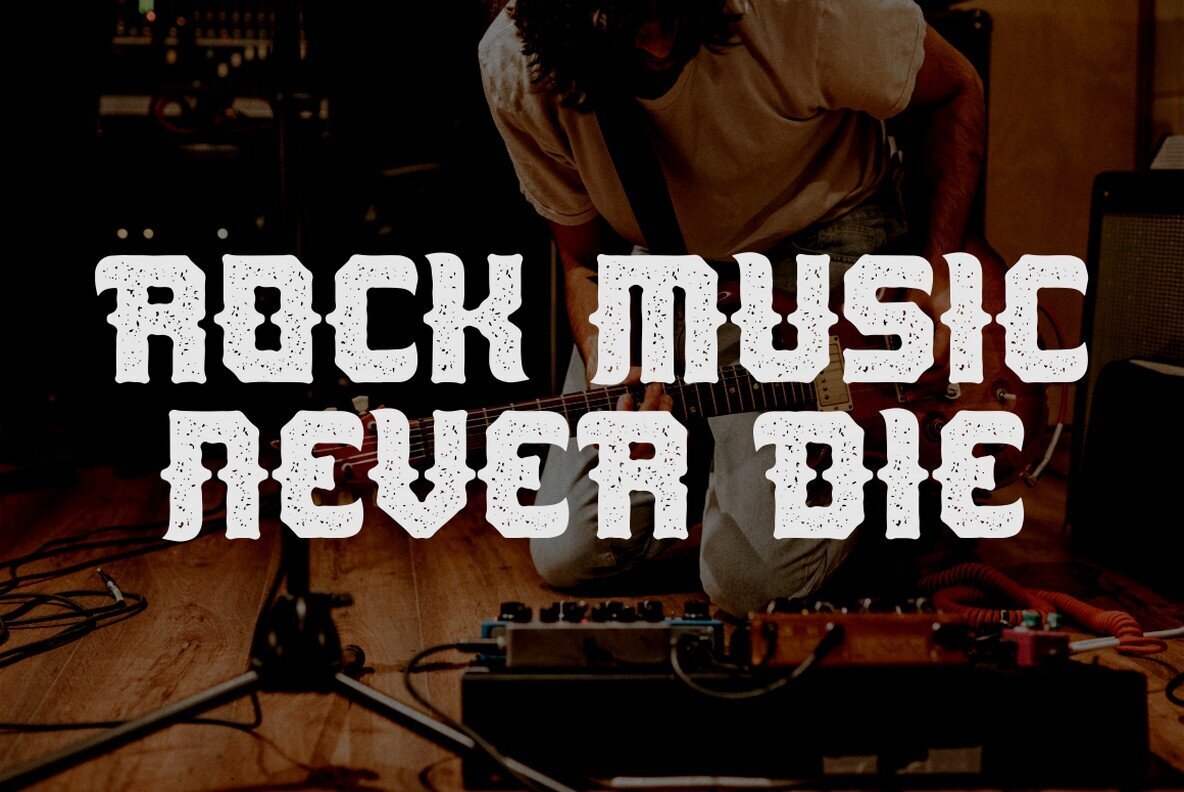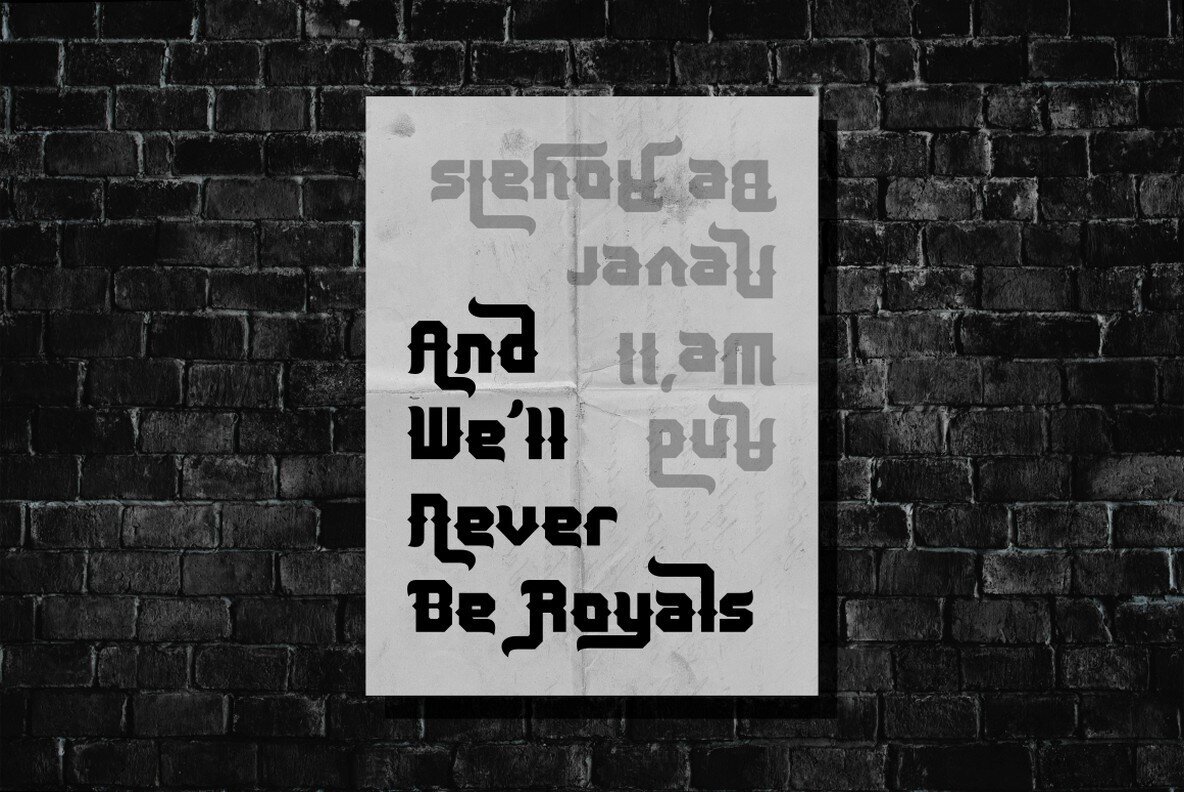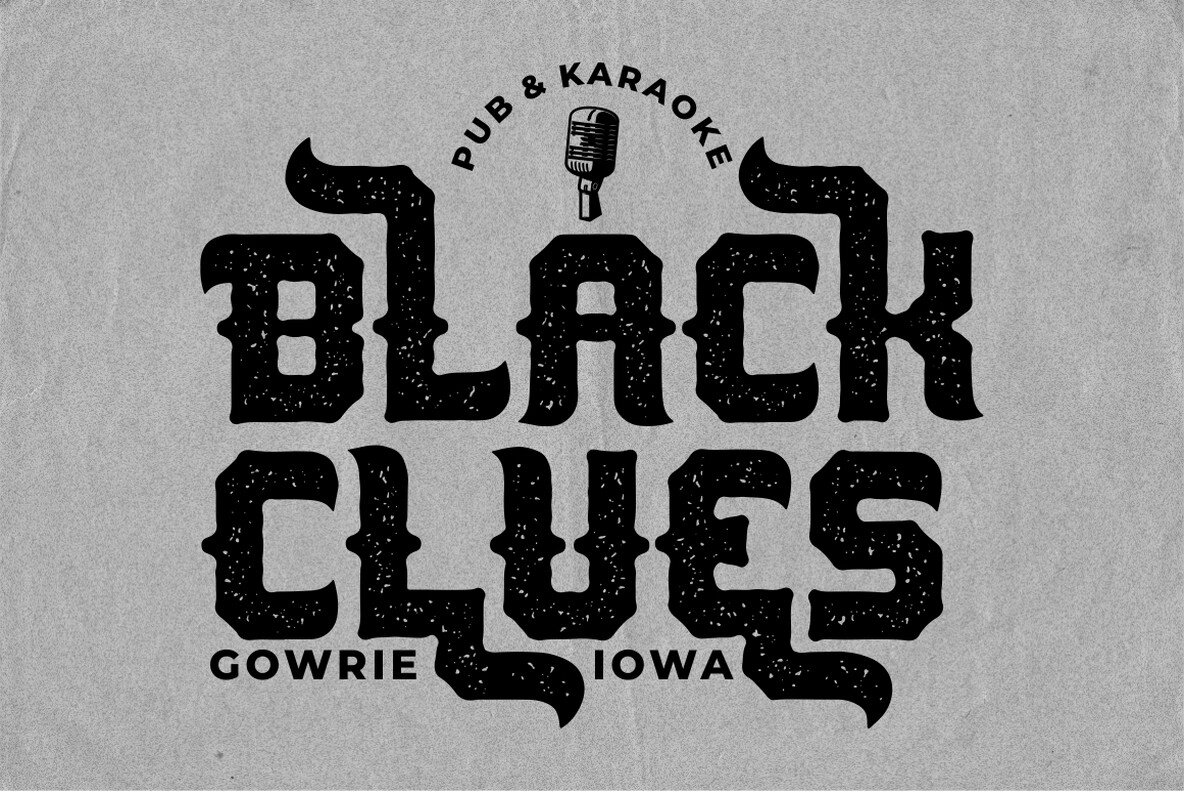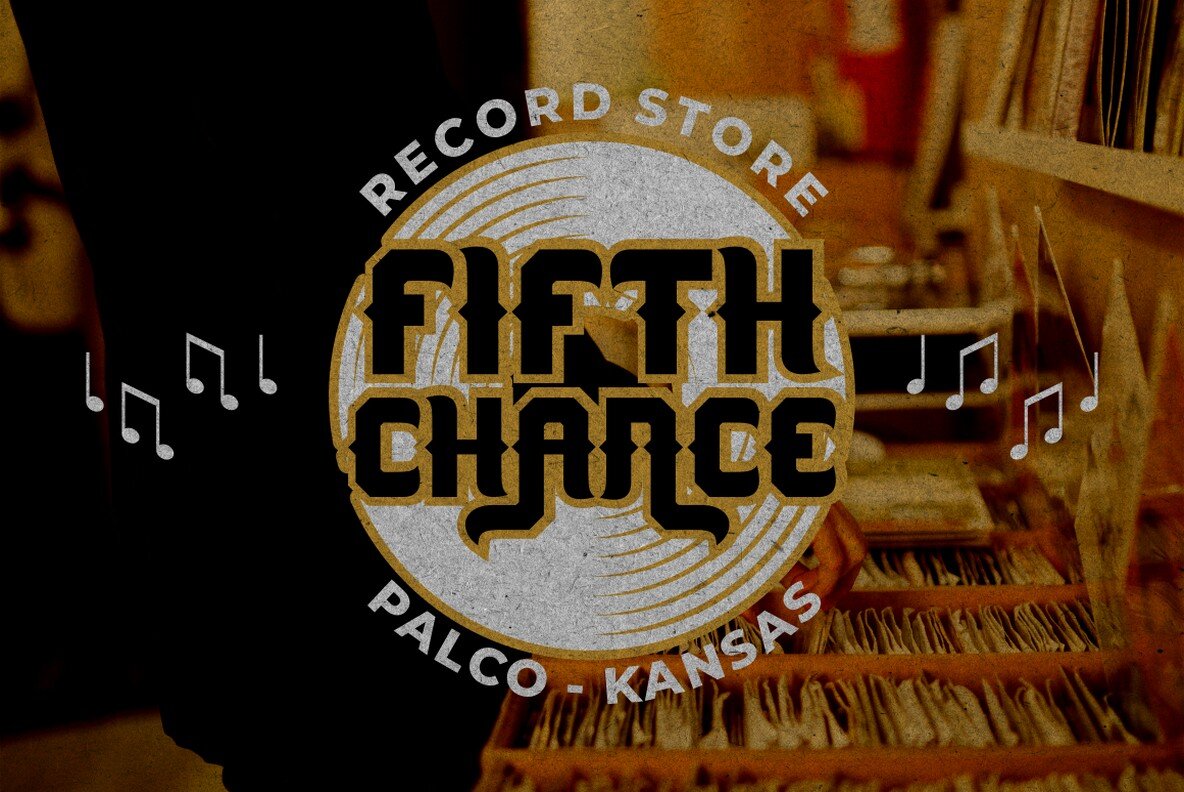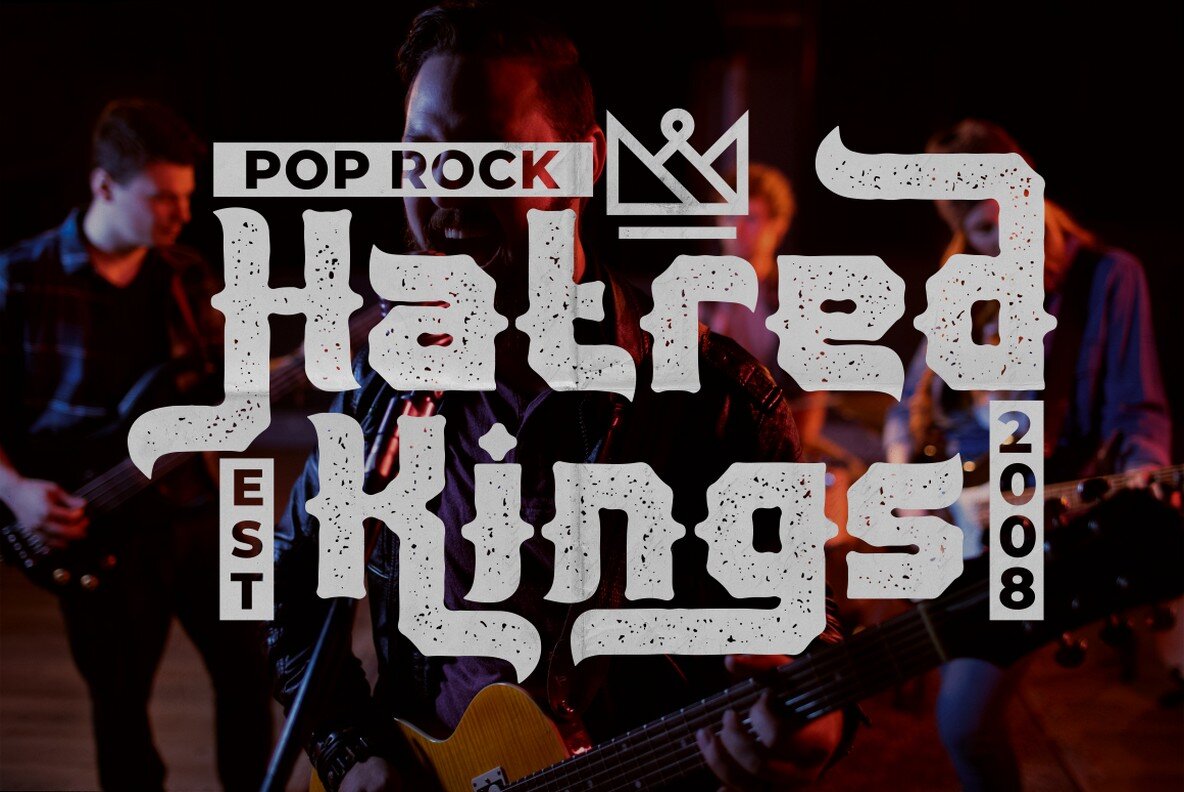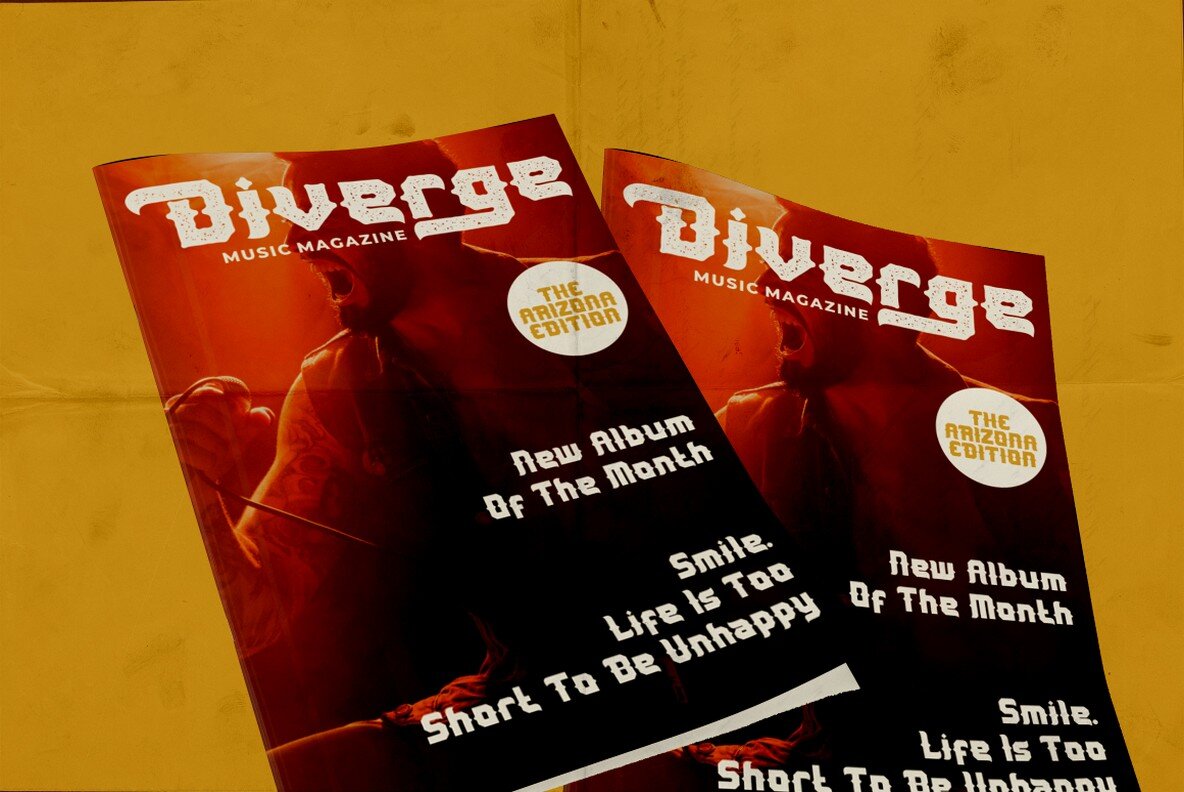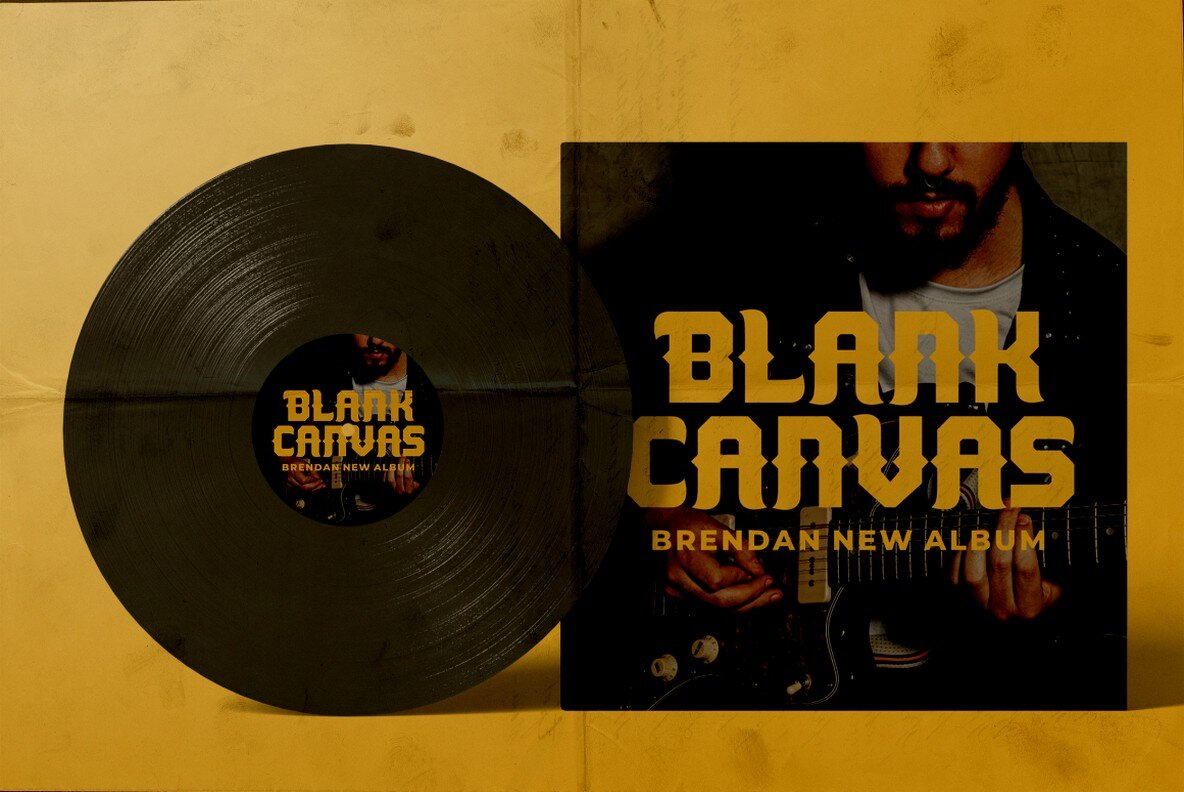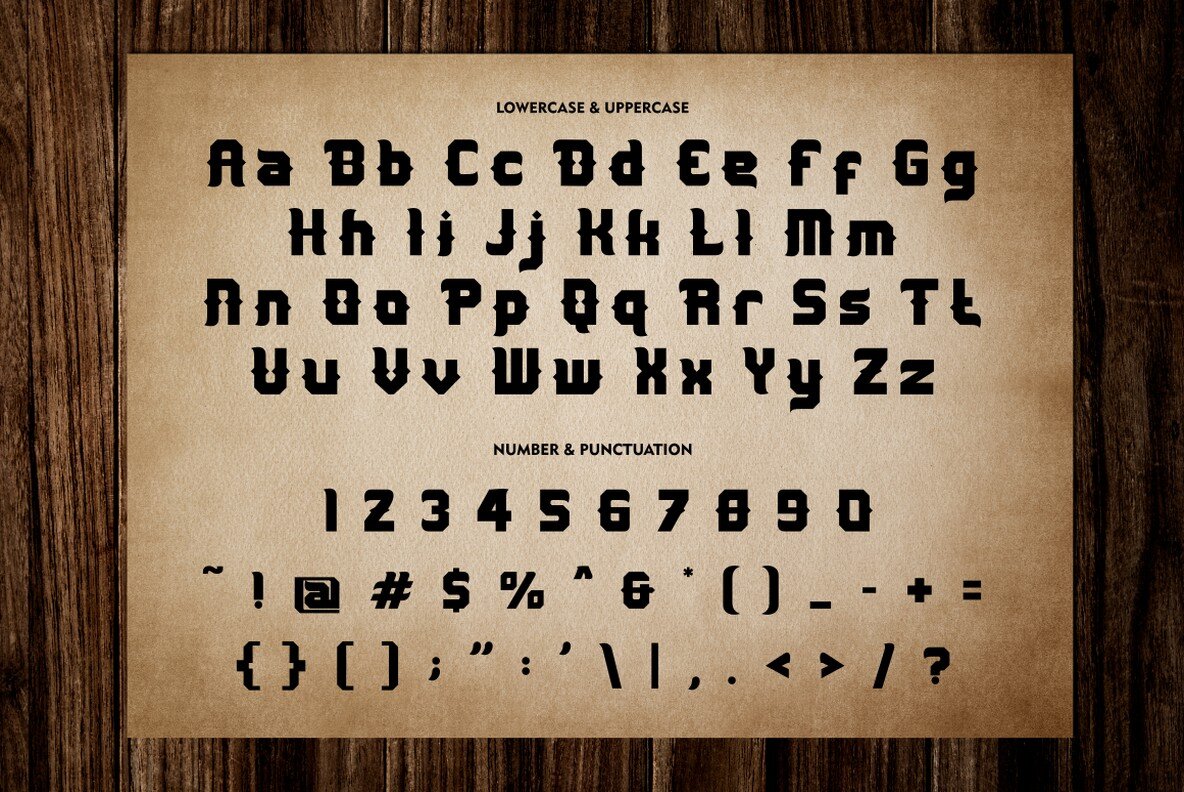
The Snailson Font
The Snailson Regular
The Snailson Texture
The Snailson emerges as a unique decorative blackletter font, skillfully drawing inspiration from the vintage poster art. This typeface blends the classic elegance of blackletter with modern dynamics through its distinctive ligature variations, infusing a retro yet trendy character suitable for contemporary design demands. This font excels in display purposes, skillfully incorporated through OpenType features like Swash, Stylistic Sets, and Contextual Alternates. Utilize them in design software tested for OpenType features, such as Adobe Illustrator, InDesign, Adobe Photoshop, and Microsoft Word.The Snailson: Decorative Blackletter Display Typeface